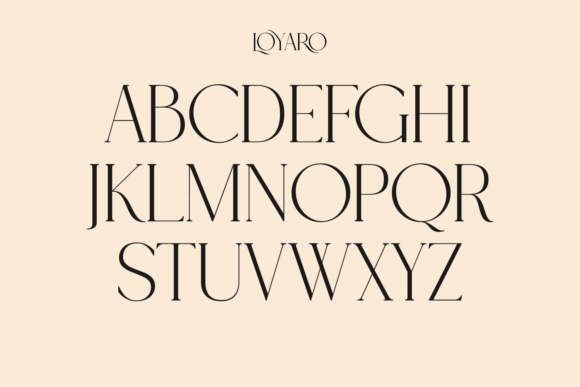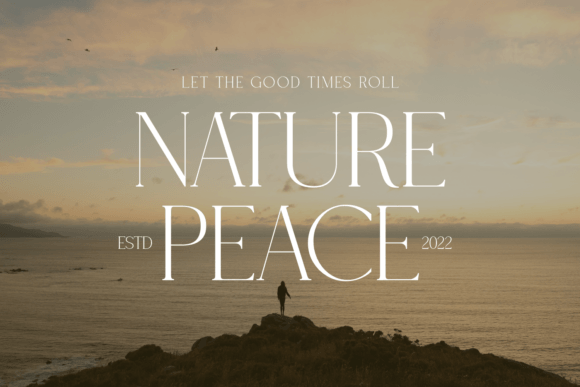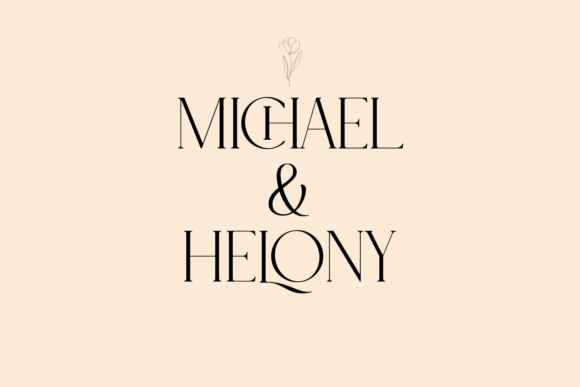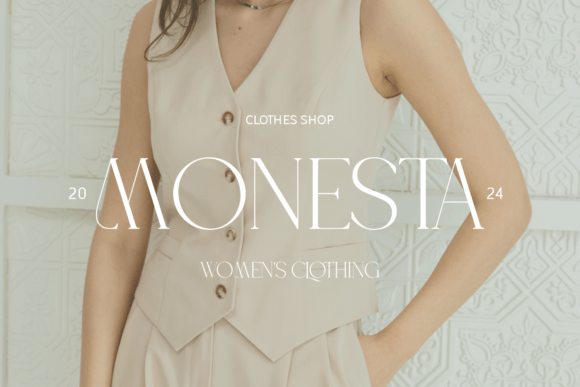
Introduction to Loyero Font
Loyero is a stylish serif font that combines elegance and readability.
Its graceful letters have soft curves and classic lines, making it perfect for both print and digital designs This font adds a touch of sophistication to invitations, logos, and headlines, making any text look refined and charming.
Key Features of Loyero Font
Why Choose Loyero Font?
Loyero Font offers exceptional quality and versatility, making it a valuable addition to your design toolkit. Whether you’re creating for personal projects or commercial use, Loyero Font delivers professional results.